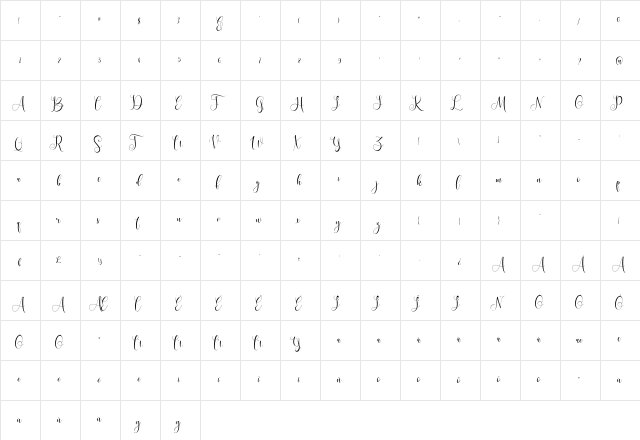
Sulqata Regular
| Designer | Gilar Studio |
Design Context for Sulqata Typeface
Sulqata is a composed and adaptable typeface that performs quietly and consistently across a wide range of design contexts.